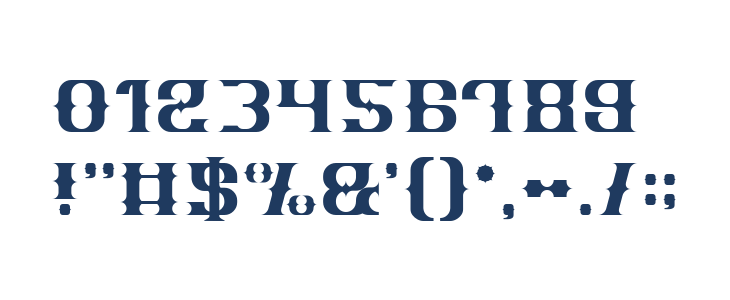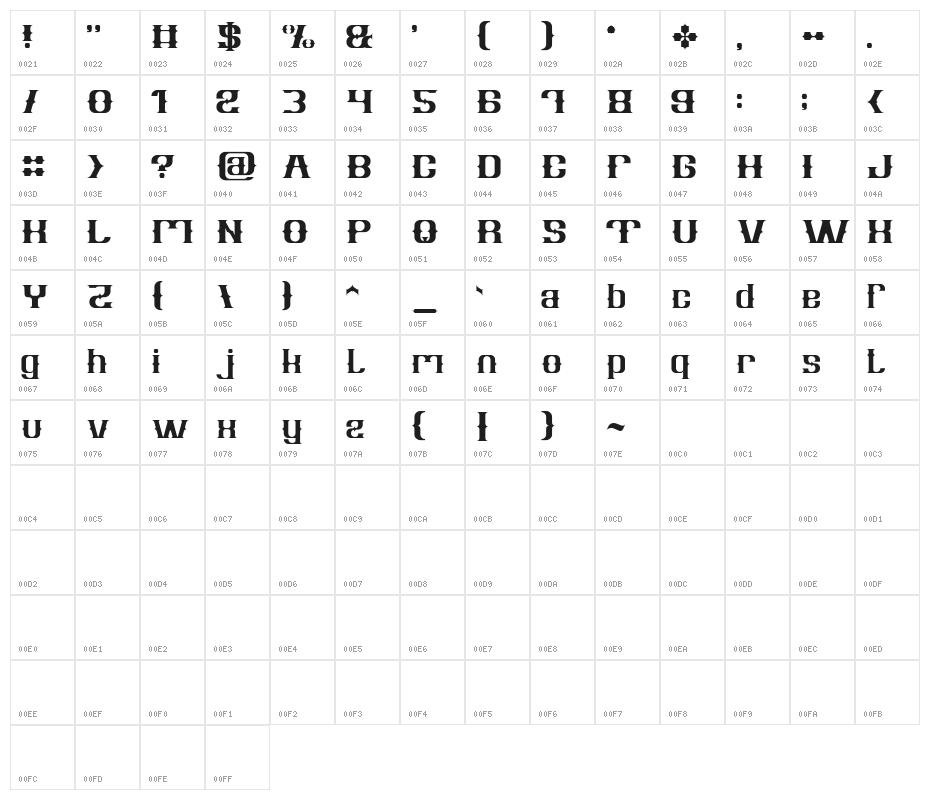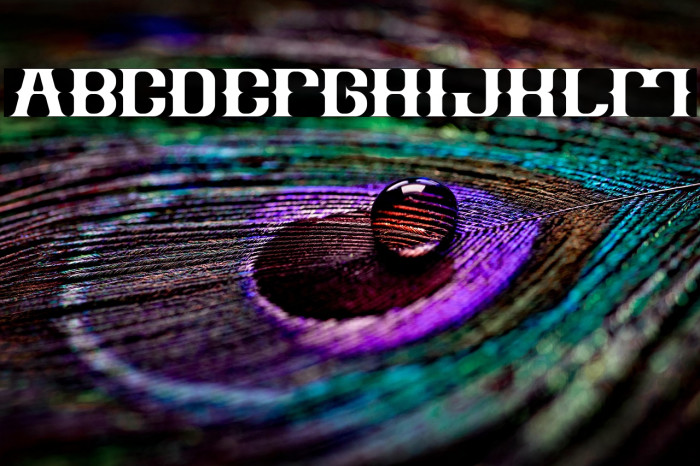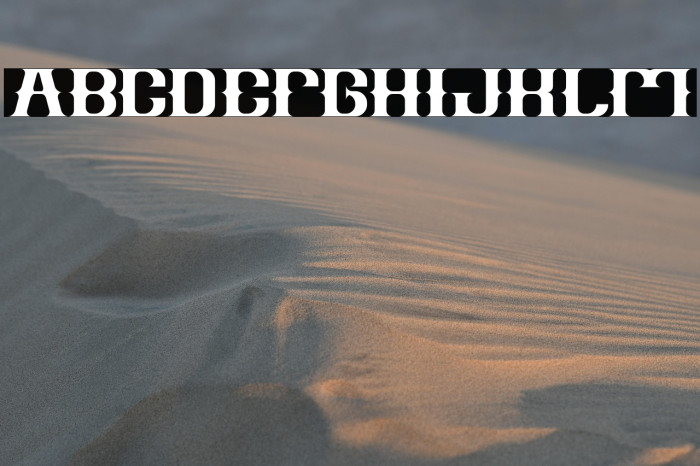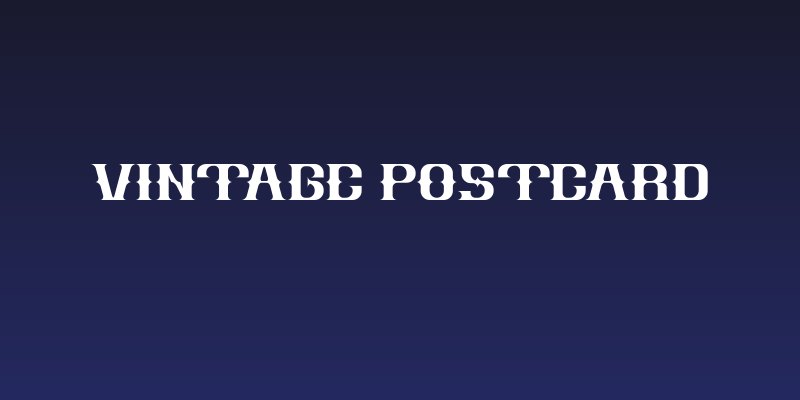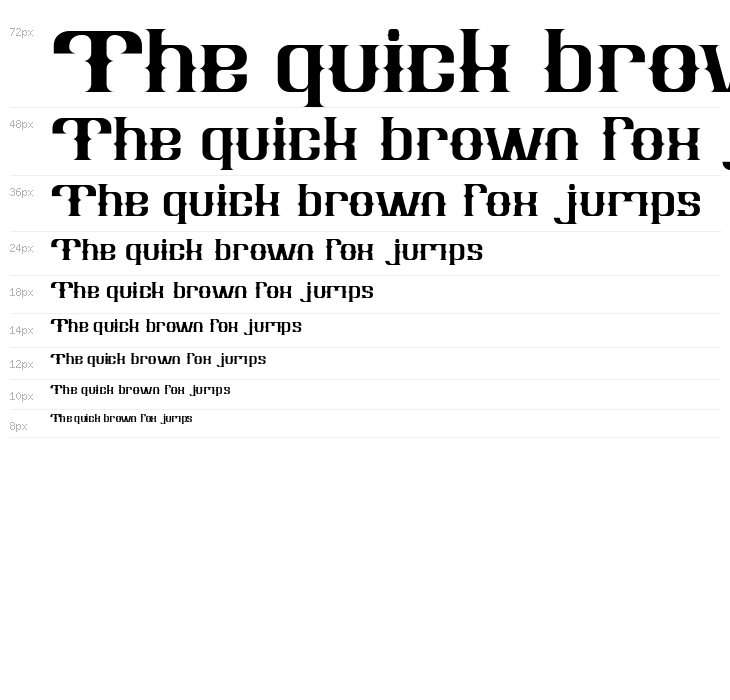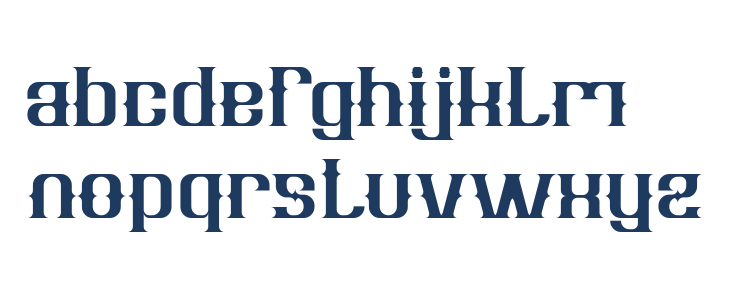
Vintage Postcard Font
Vintage Postcard Description
This font features a bold and decorative style with a vintage flair, reminiscent of old postcards and signage. The characters are characterized by their thick, block-like forms with unique serifs and intricate detailing. The uppercase letters stand tall with a strong presence, while the lowercase letters maintain a consistent style, offering a cohesive look. Numbers and special characters are designed to match the overall aesthetic, providing a complete and harmonious set. The font's distinct style makes it ideal for projects that require a touch of nostalgia and elegance.